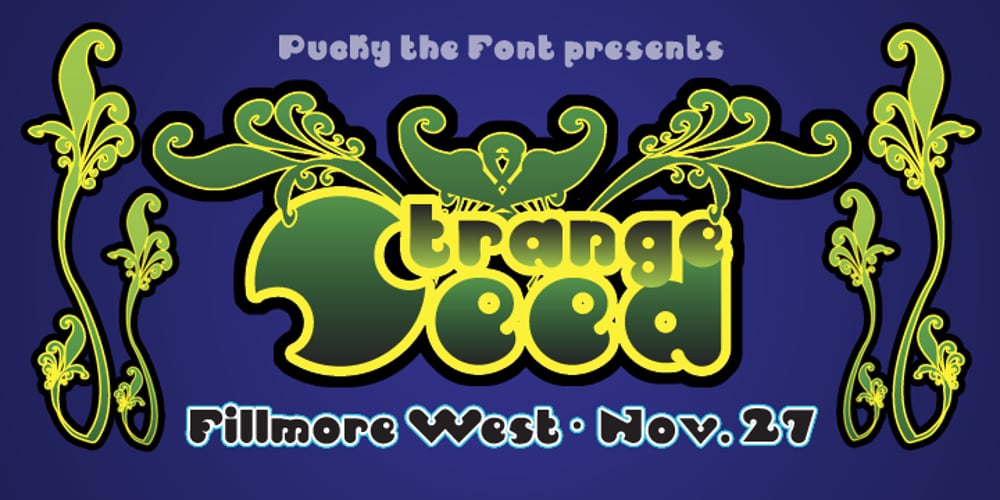
Pucky Font Family was designed by Randy Harris and published by Just My Type. Pucky contains 1 styles and family package options. When teaching font-making at the Art Institute of Tucson, I give my students plenty of lab time to come up with design ideas. I designed Pucky while one class created their fonts. It came about through an idea for a capital A: sort of a triangle with two round sides and a crossbar formed by a circle falling out. (You can see it here.) In drawing that, I hit upon the idea of making the tops of the alphabet sharp and square and the bottoms rounded. (See the whole alphabet here.) Pucky suggests both circus and psychedelia. Hmmmm, does anybody have an “in” at Cirque du Soleil?